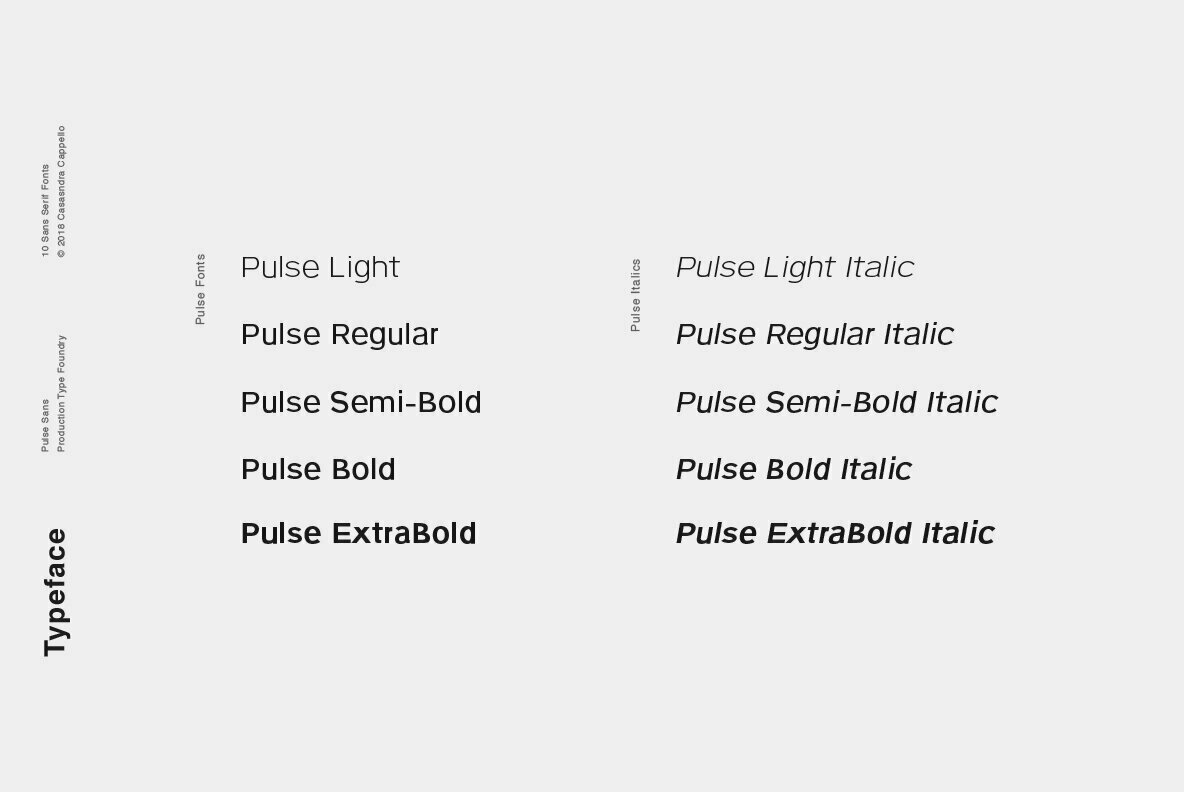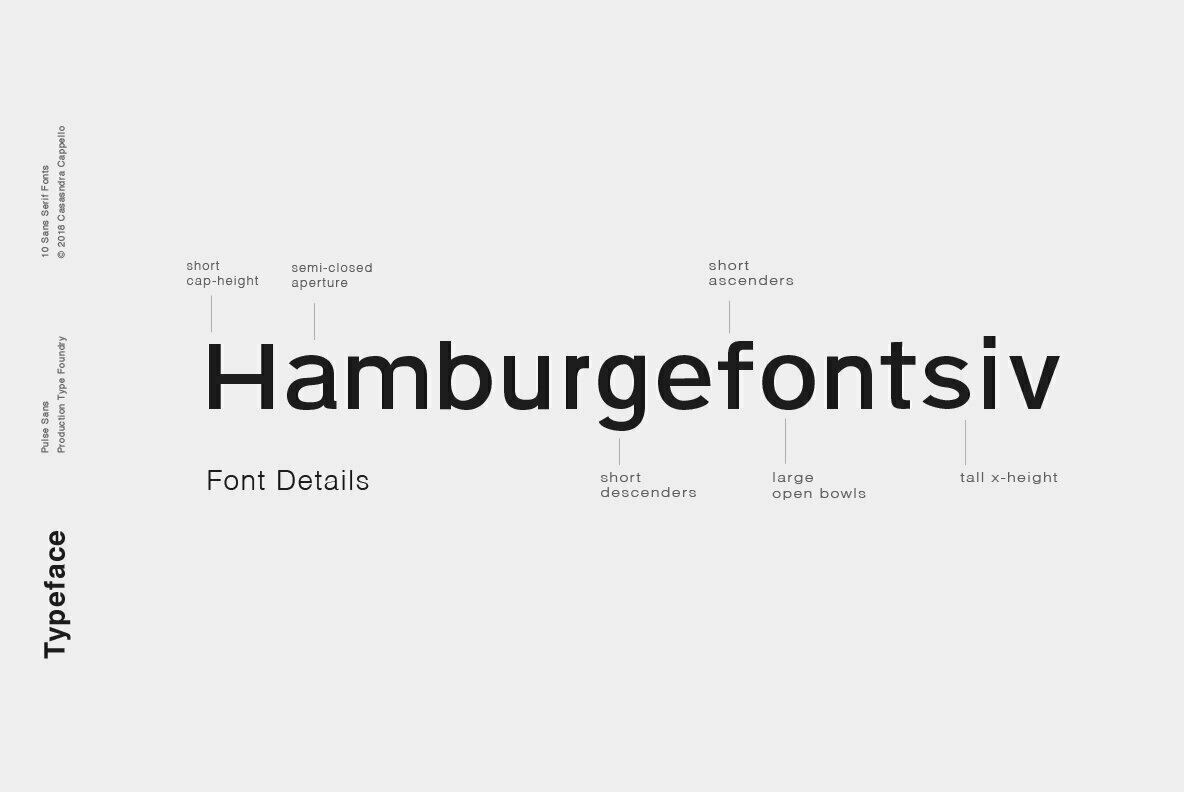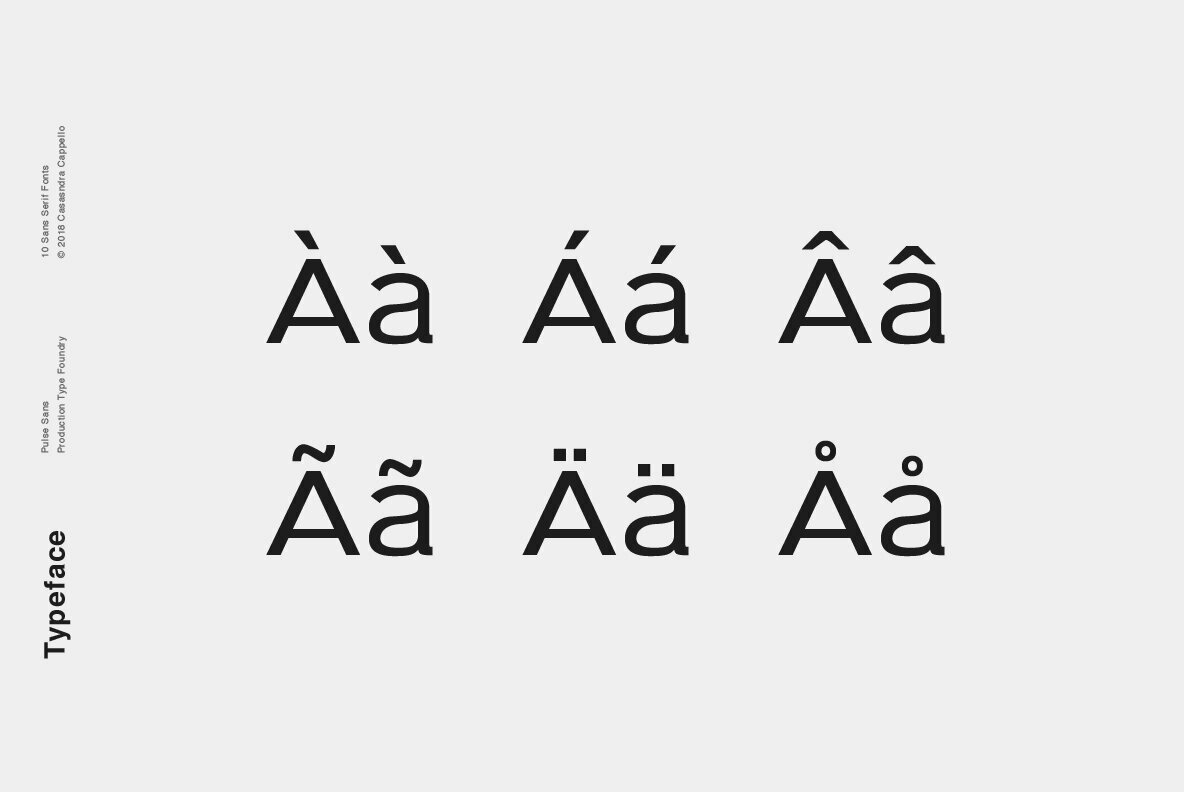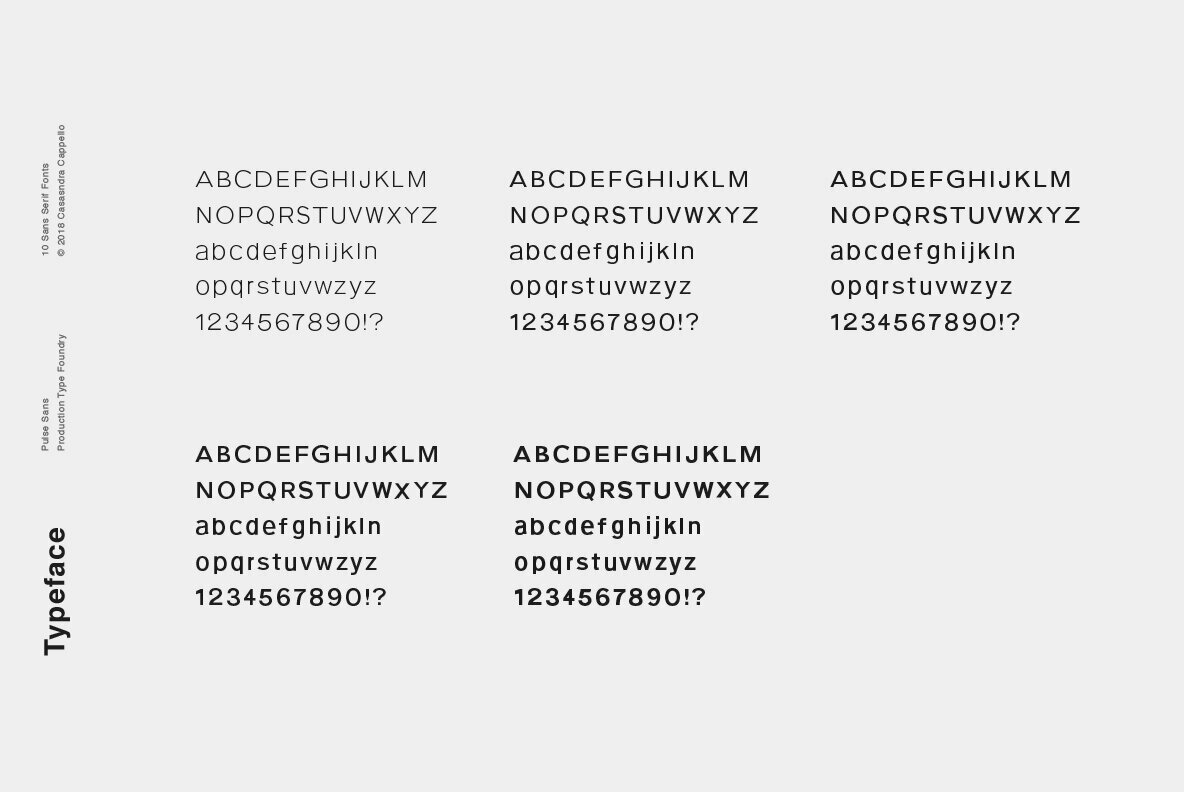
Pulse Font
Pulse is a minimal, classic sans serif typeface. It has a little bit of personality and can be used for both headers and body copy. This font family includes all Latin characters (including accents), numbers, special characters, and punctuation.
Pulse includes ten fonts in OTF format: Five weights and five italics.